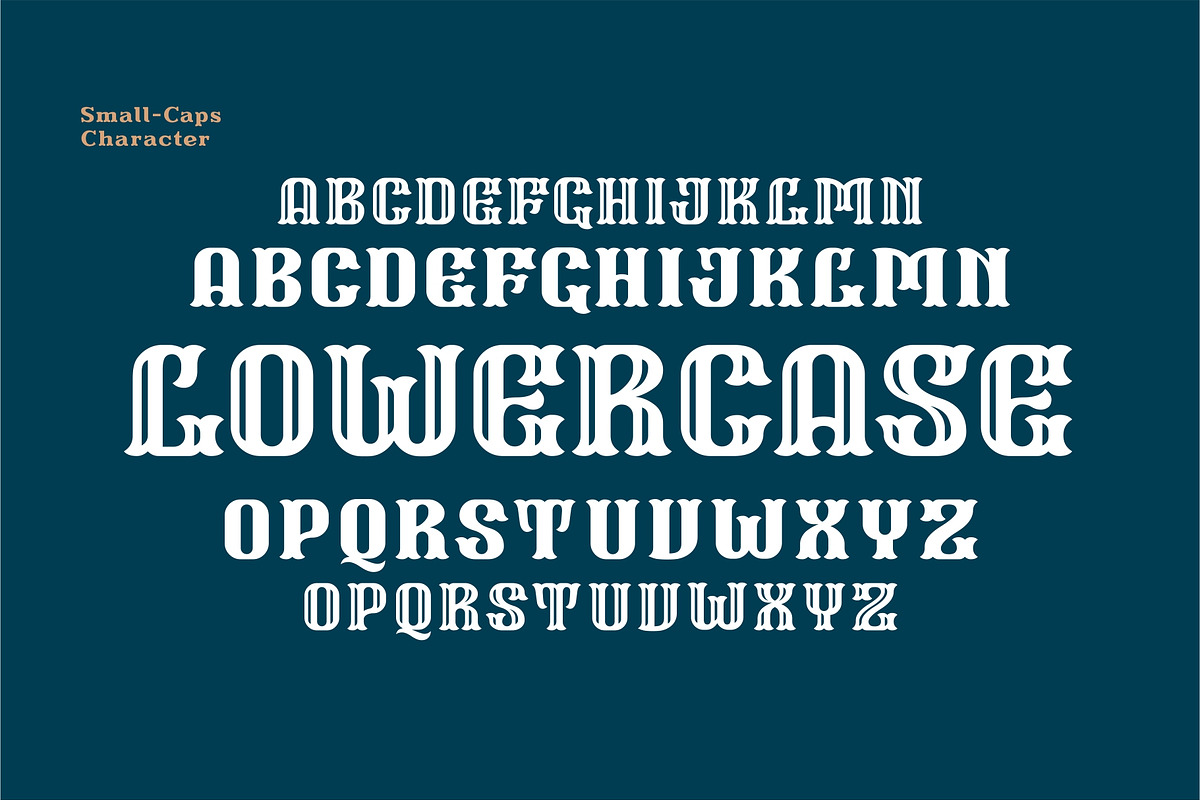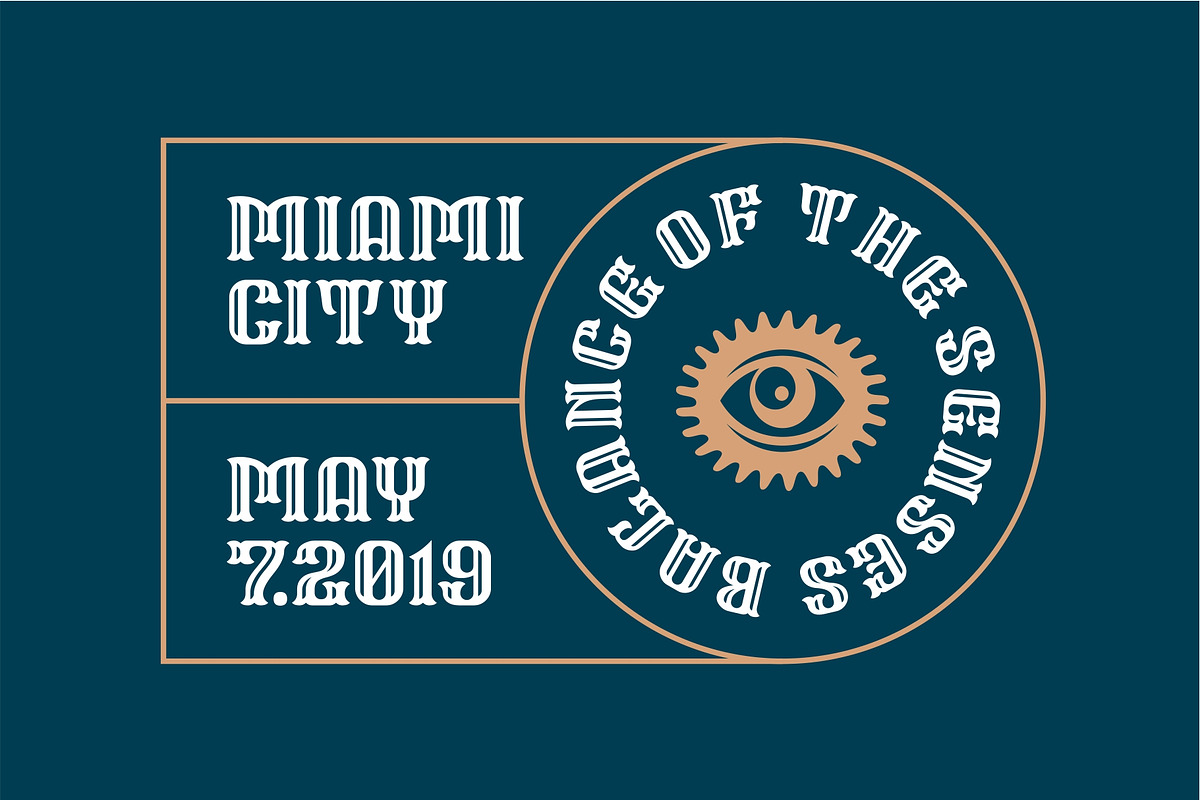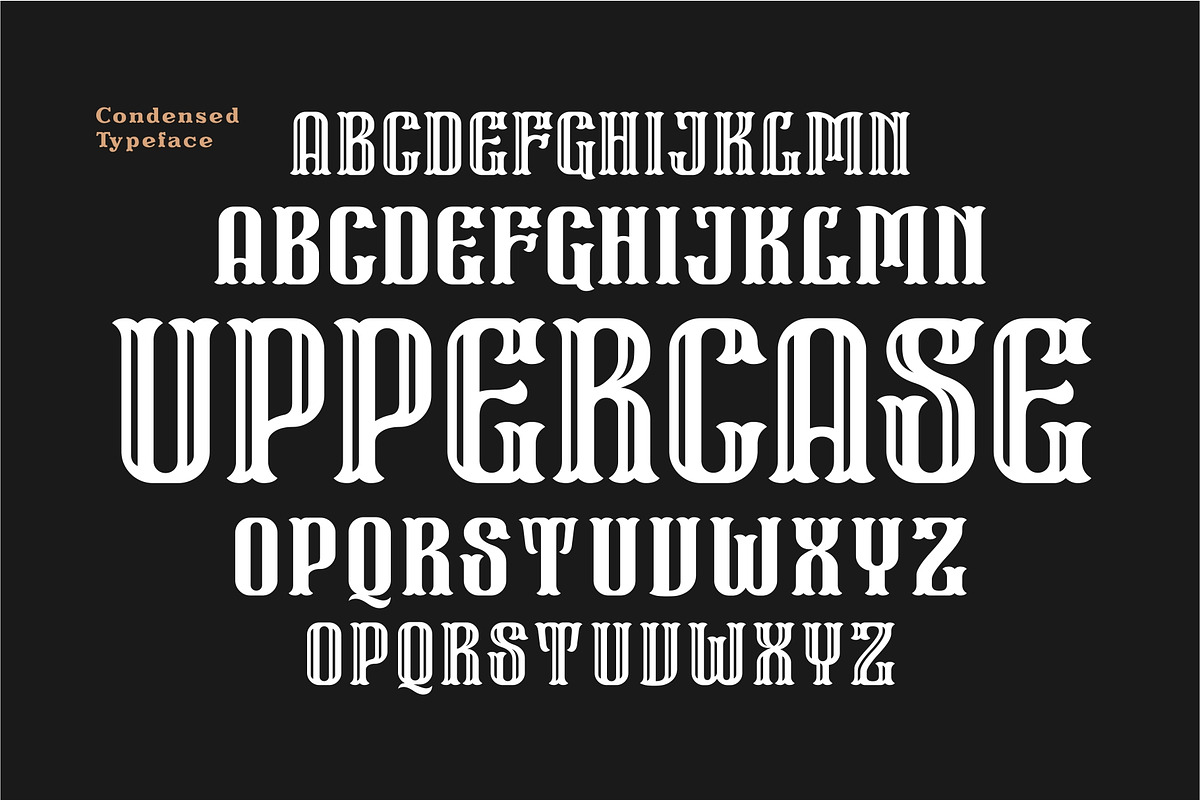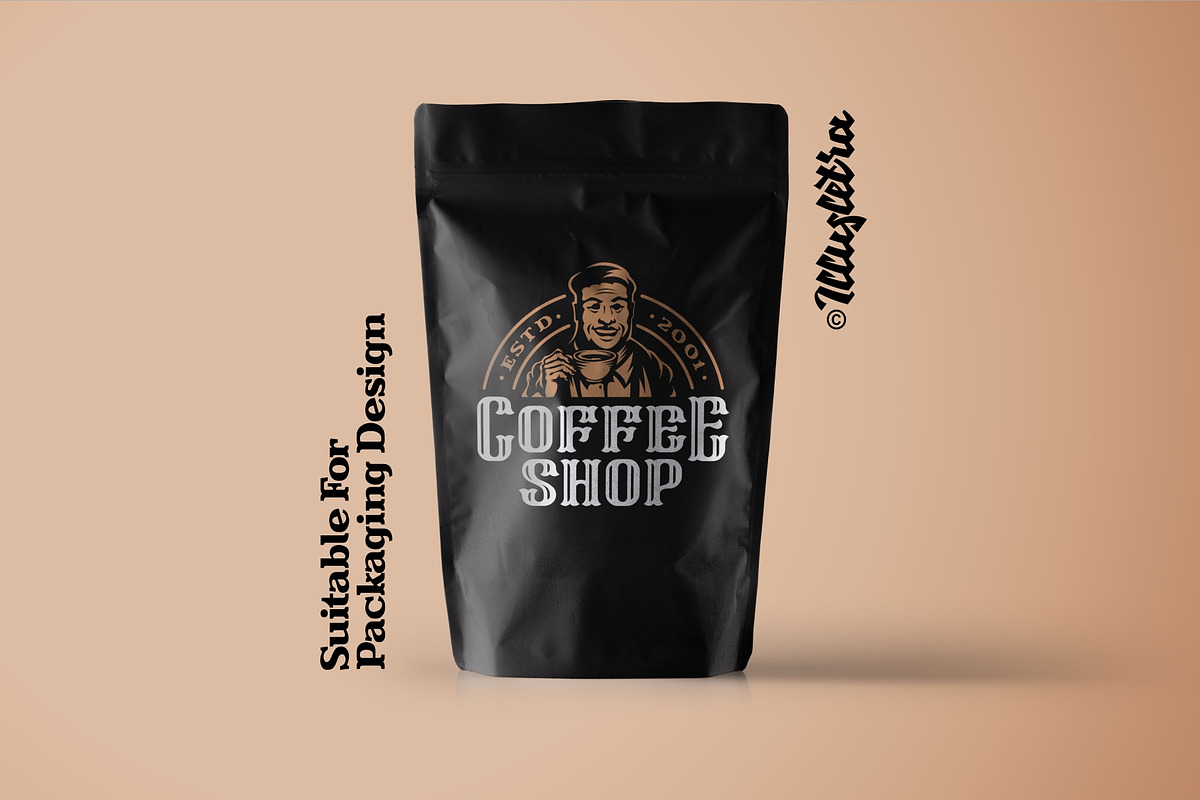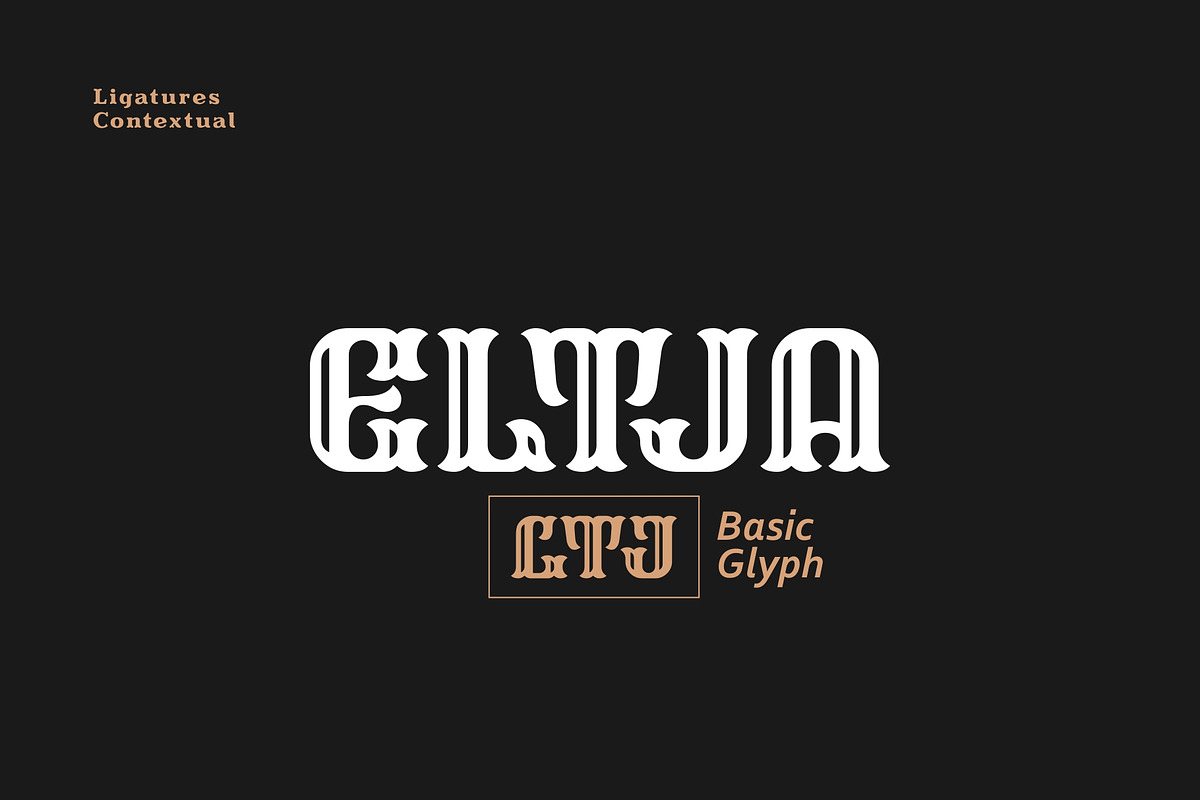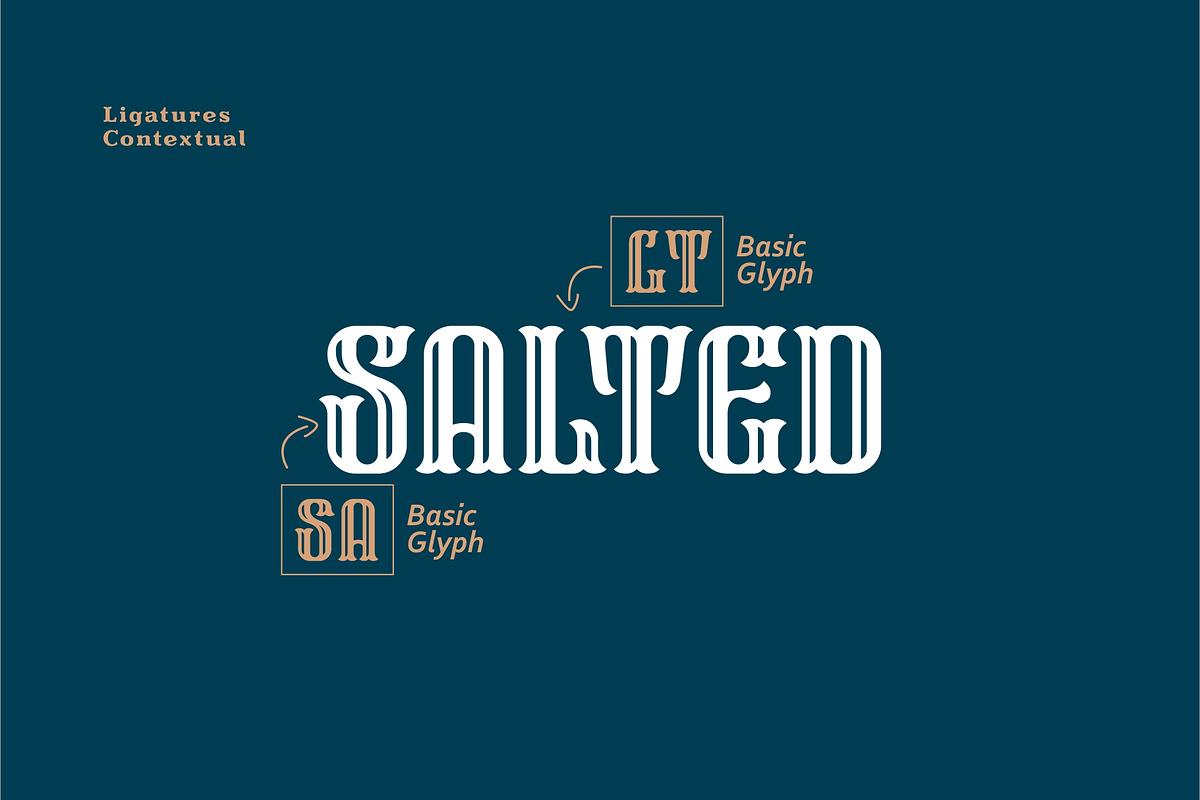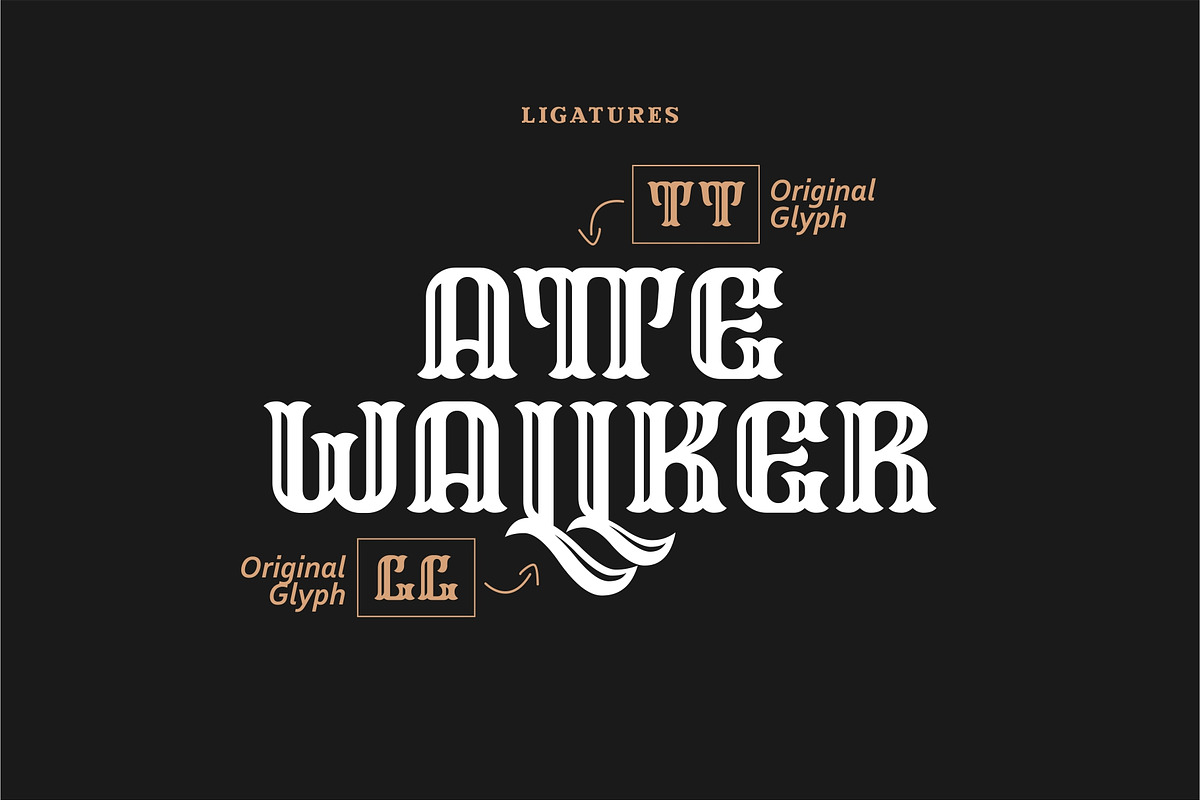
WallAxe Fonts Condensed
What distinguishes it from its predecessor is that this font has been fixed with bug fixes from previous versions, character development and glyphs, adding contextual ligature, more multilingual characters.. Come with 2 styles regular and inline style. Released since 2018.
Fraction, Numerator, Denominator
Number Styles, Lining FIgures, Old Style.
Includes a range of multilingual characters.
WallAxe Typeface is suitable typeface for various purposes like logotype, signage, label, poster, dropcap, titles, letterhead, book cover and etc.
- Ordinals Includes a range of multilingual characters.
WallAxe Fonts Condensed by Nocturnal Workspace fits naturally into Branding, posters, packaging, typography.